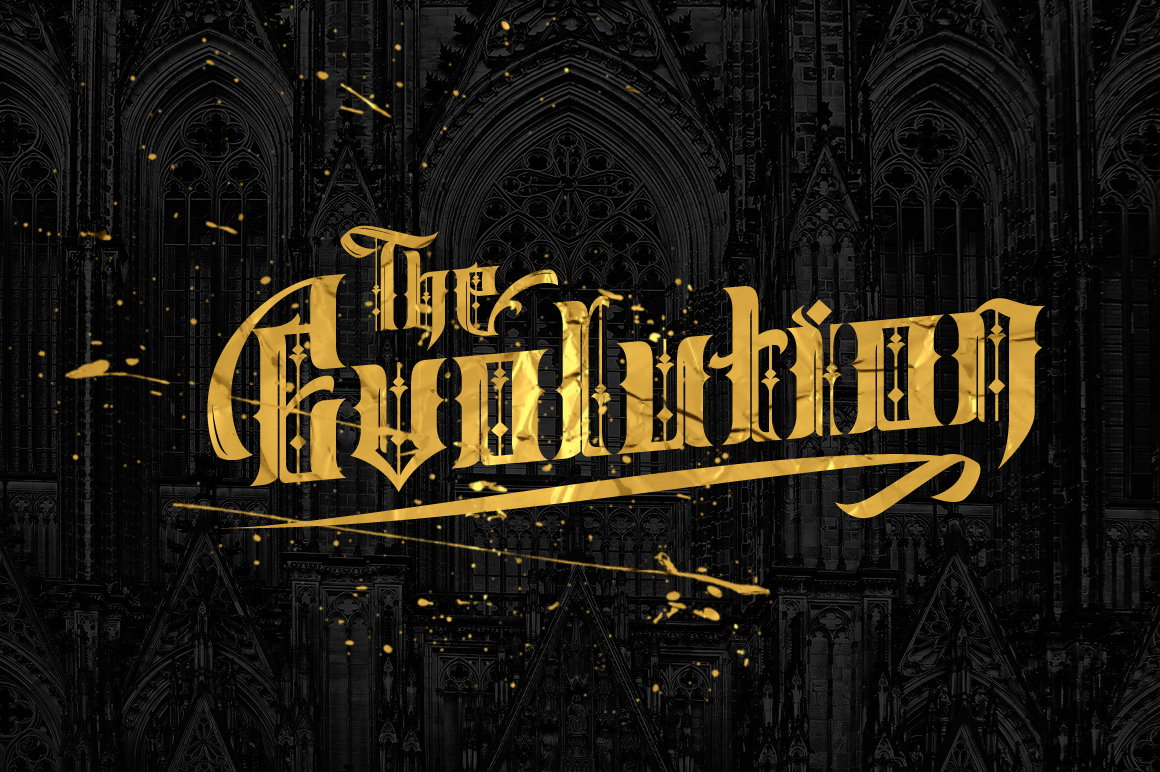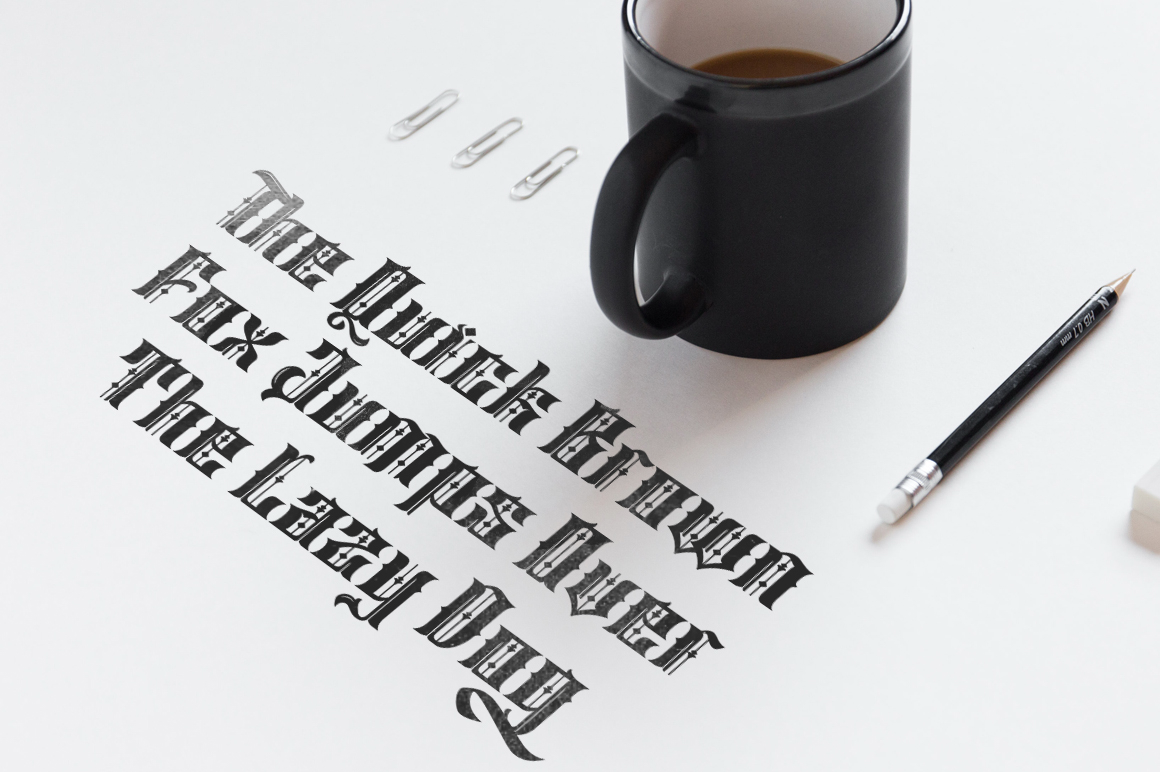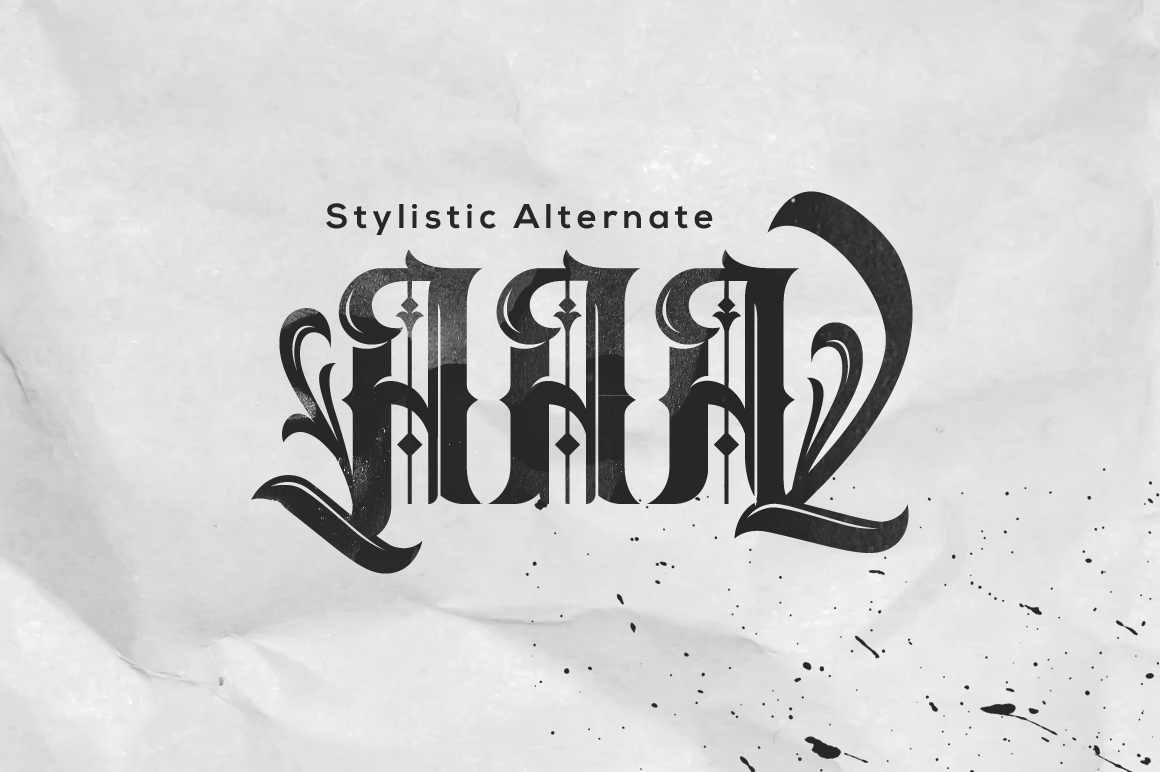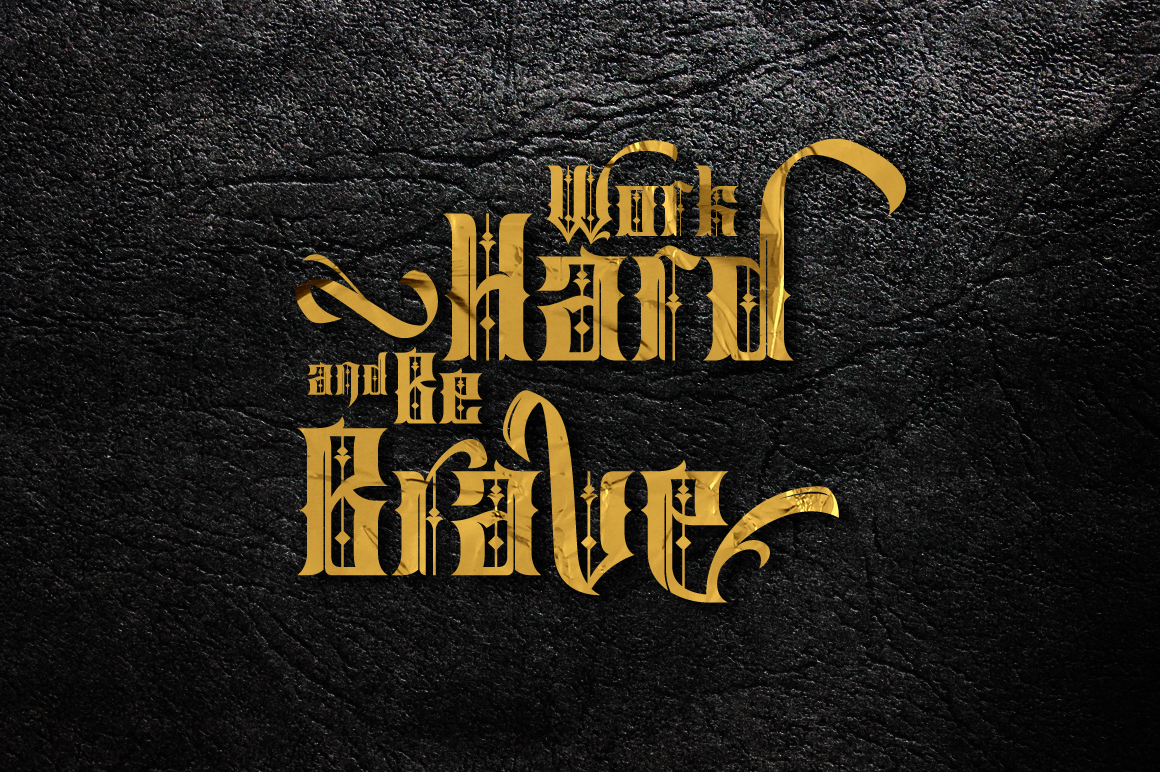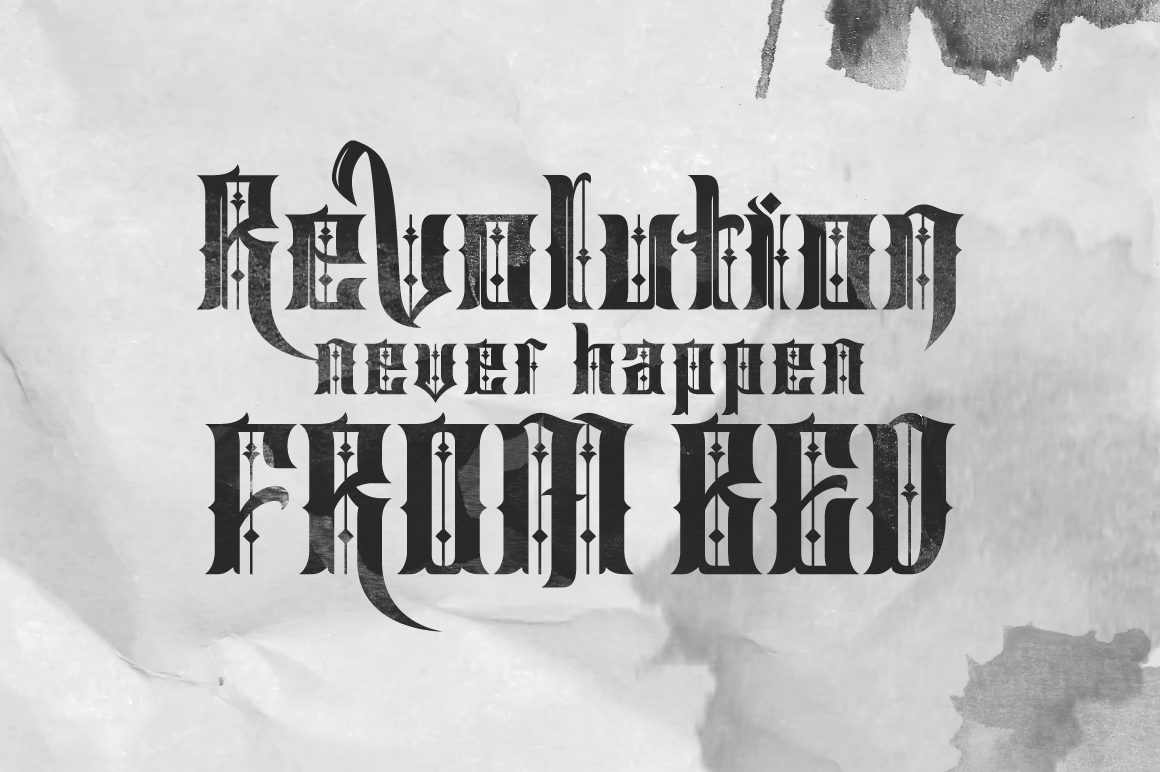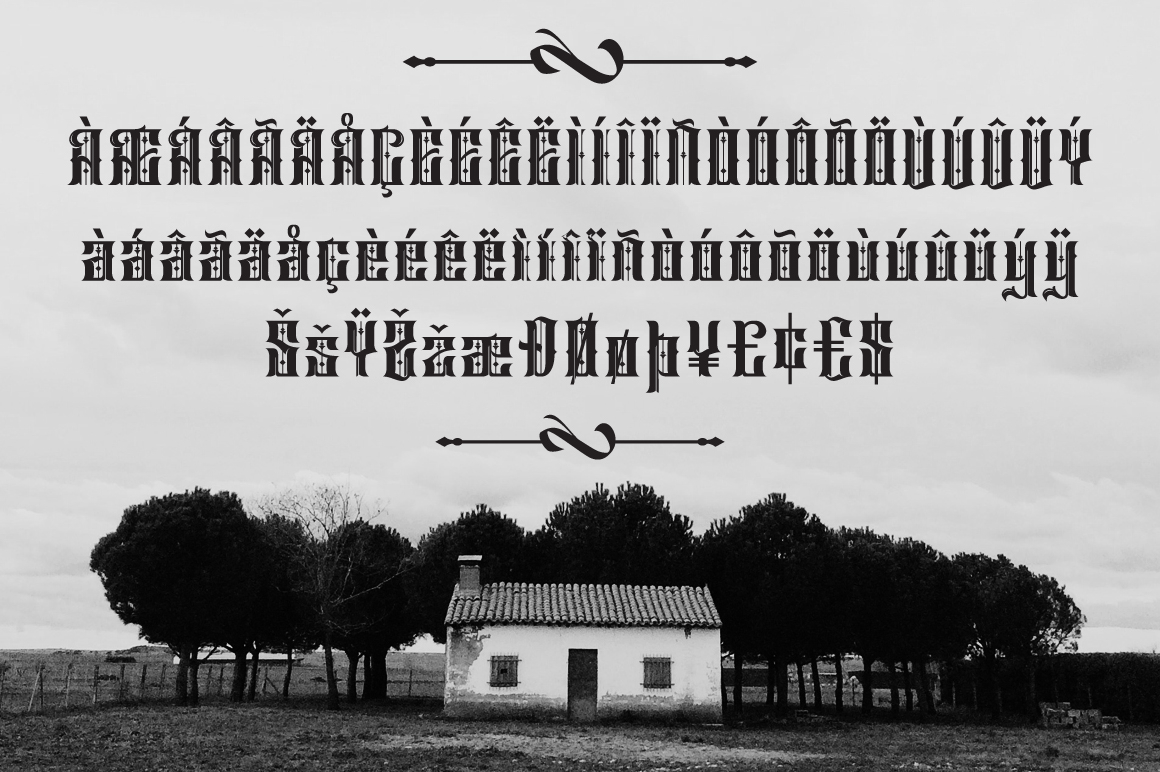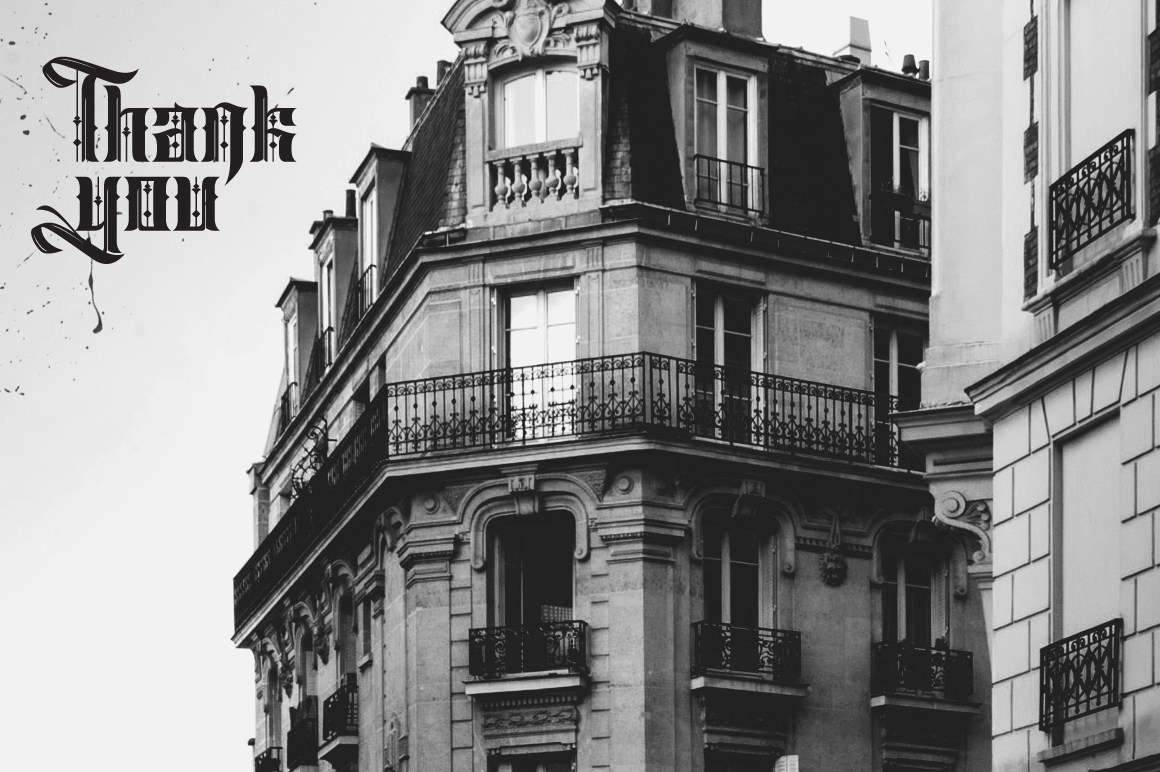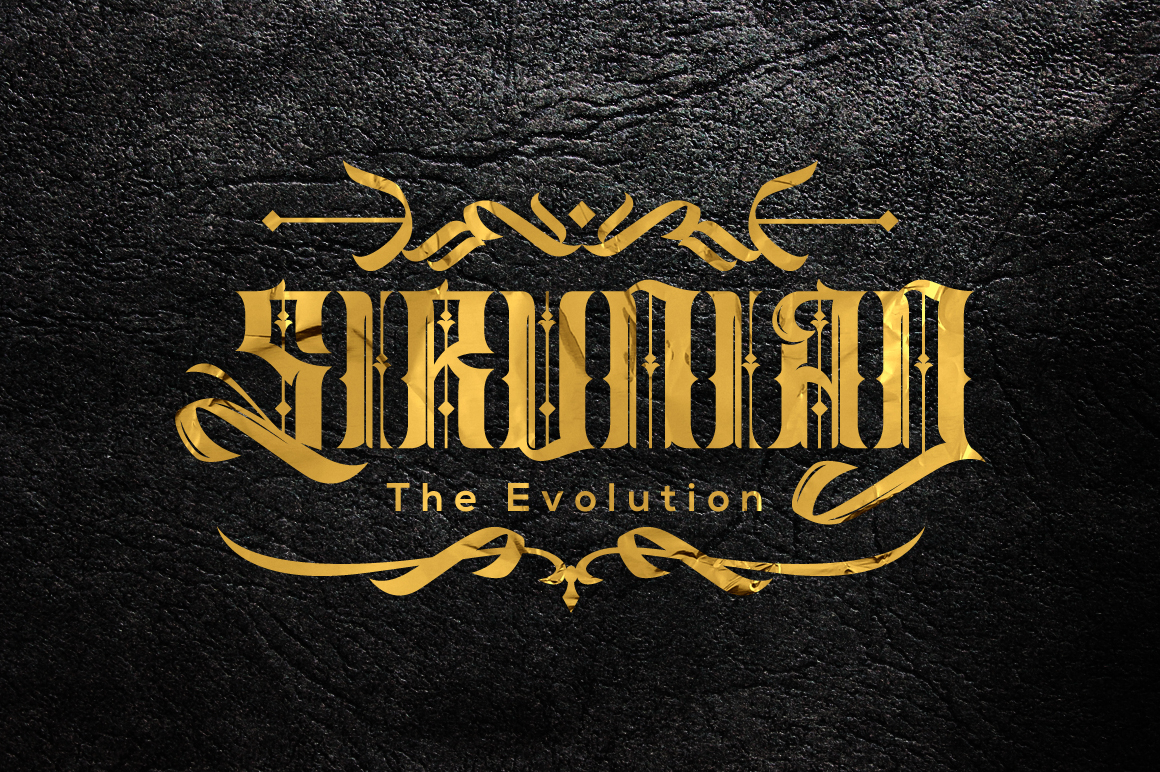
Sirunian Font
About Sirunian Font
This experimental and gothic inspired font is gorgeous and evokes images of years past. This font is recommended for display or headline options given its stunningly intricate detailing and style. Available in Inline and Regular.